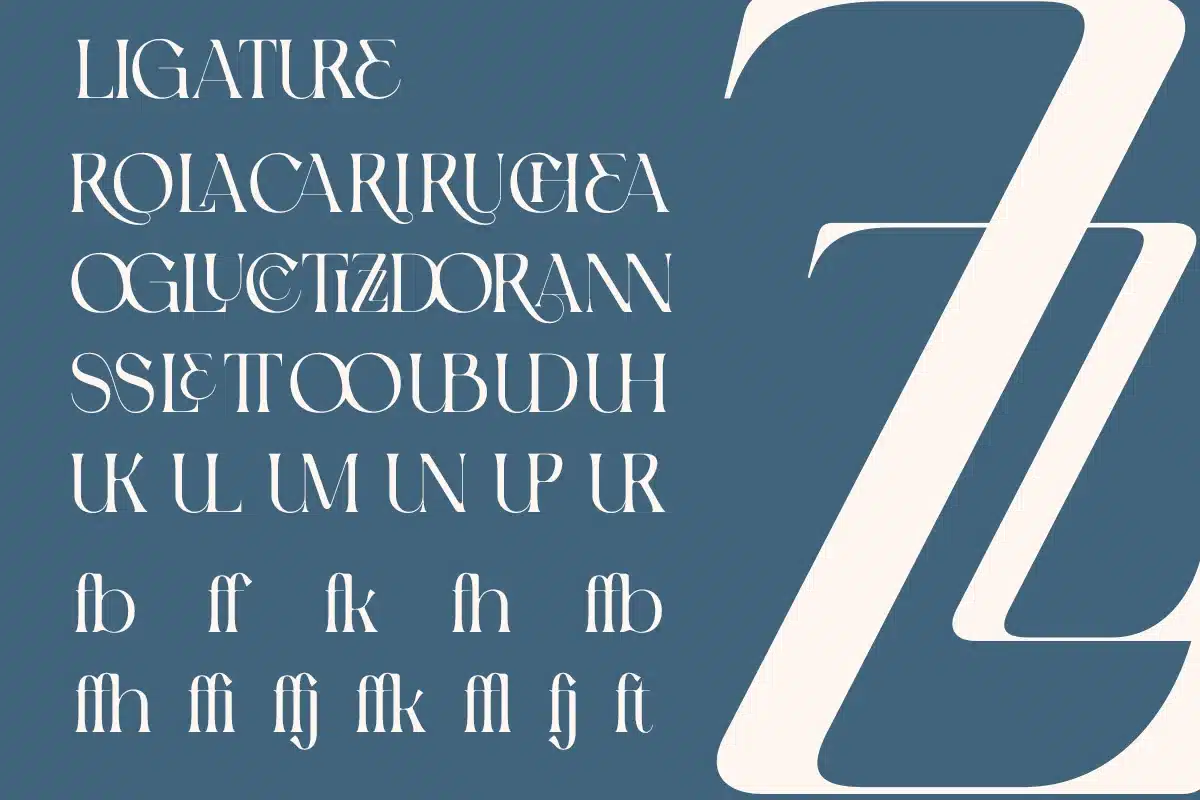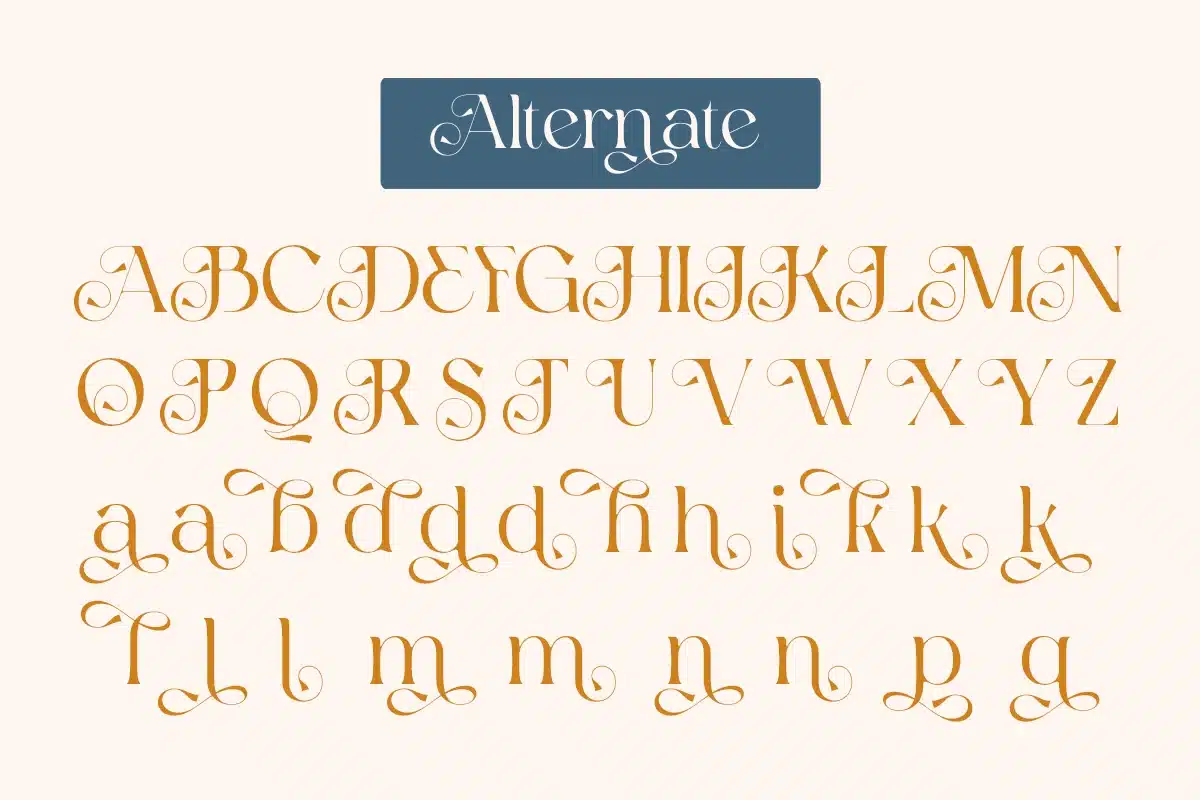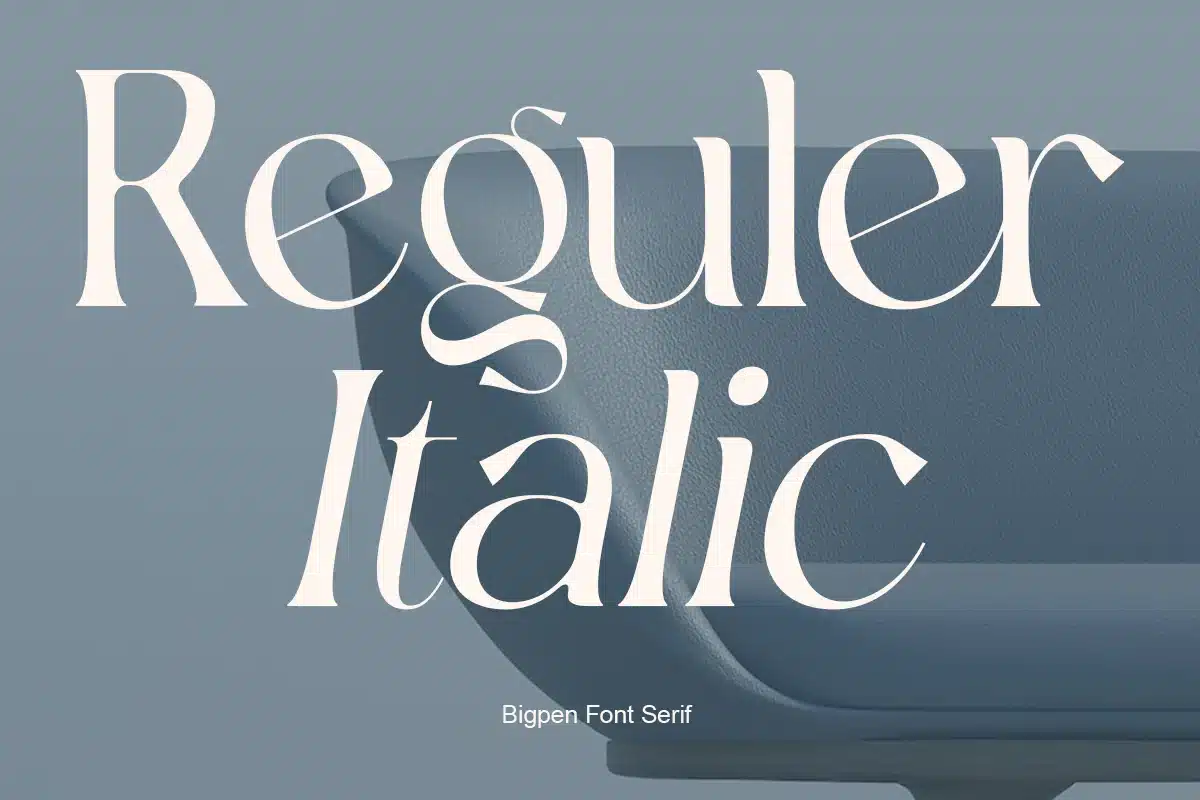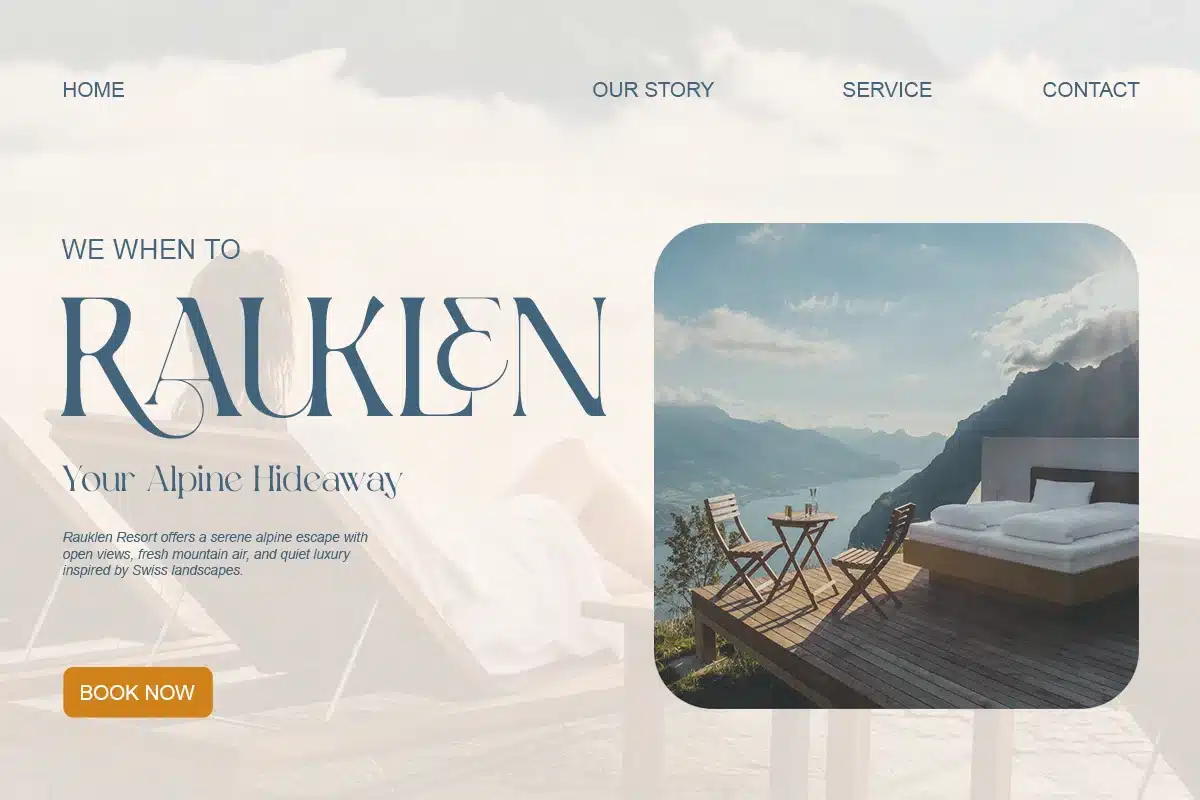
Modern Elegant Swash Branding – Bigpen Font
Bigpen is a modern elegant swash serif typeface designed for refined branding and editorial typography. Featuring stylish curves, balanced proportions, and expressive terminals, it delivers a luxurious yet clean typographic voice.
Its decorative swash details and smooth ligatures make Bigpen ideal for logos, fashion branding, packaging, and premium identity systems. The design blends modern elegance with classic serif structure for timeless appeal.
Created for designers seeking stylish sophistication in display typography.
- Uppercase & lowercase
- Regular & Italic
- Alternates & ligatures
- Swash characters
- Elegant serif construction
Branding, logo design, editorial headlines, packaging design, fashion identity, boutique branding.